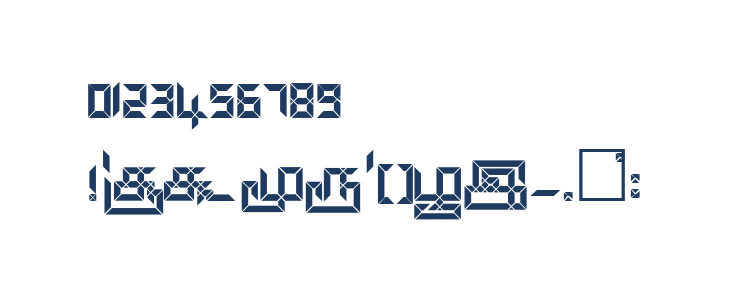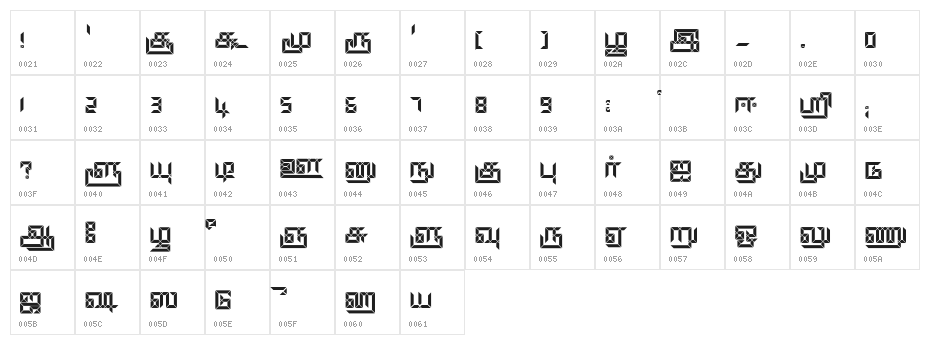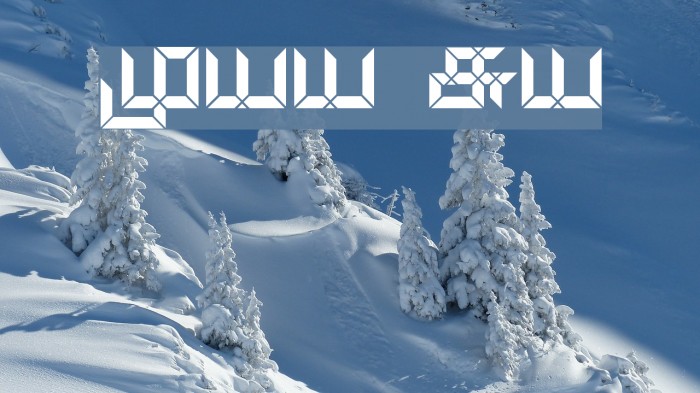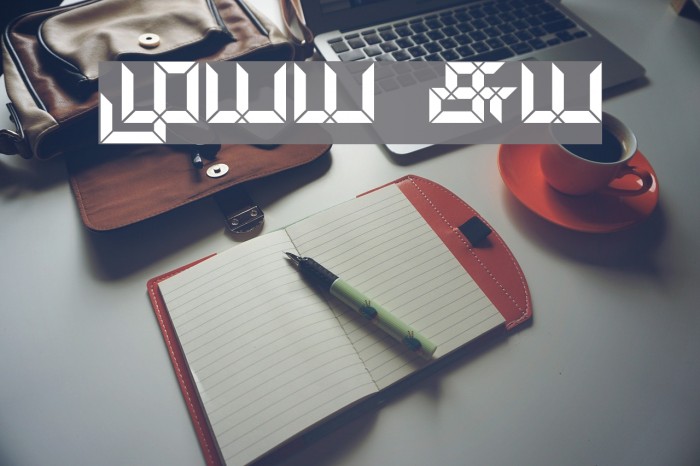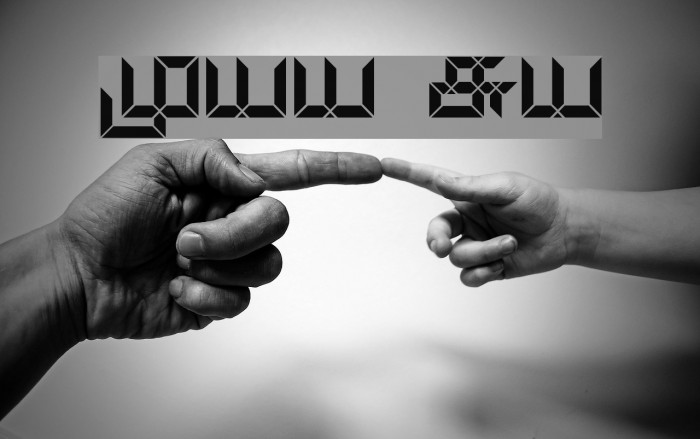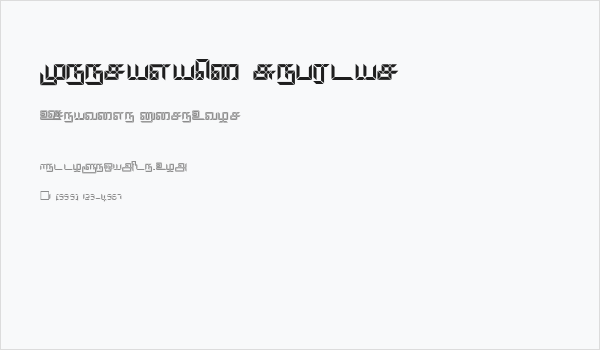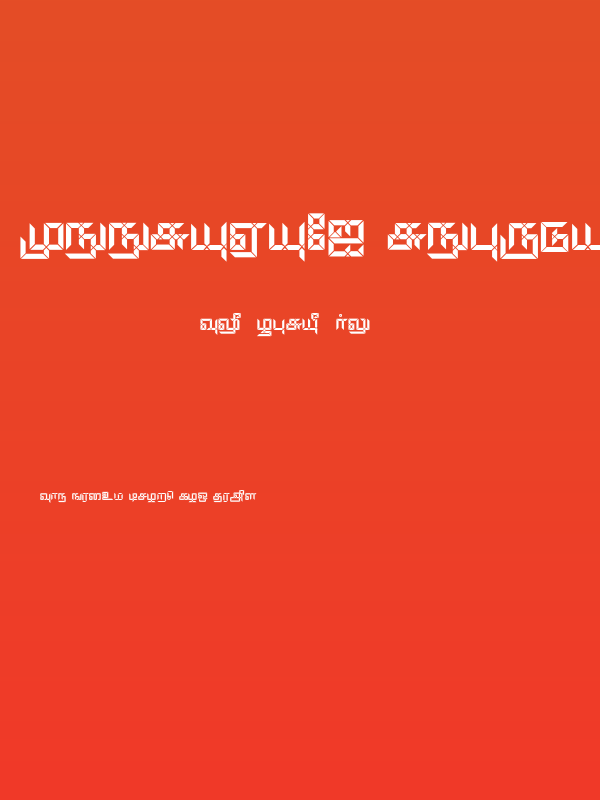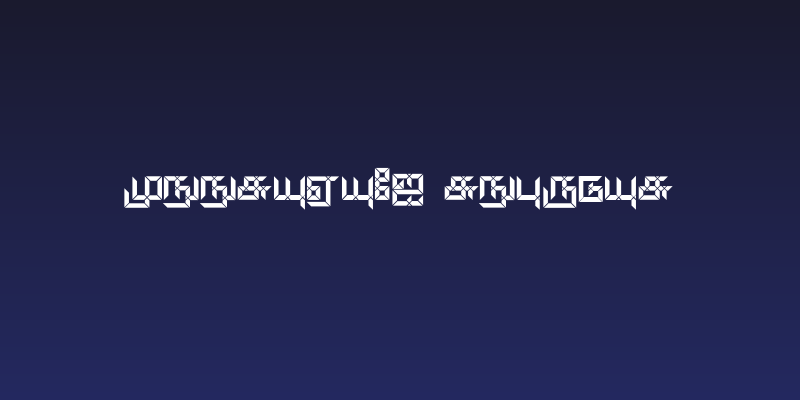
Keeravani Regular Font
Keeravani Regular Description
This font features a highly decorative and geometric style, characterized by intricate patterns within each character. The design incorporates a series of angular lines and shapes, creating a mosaic-like appearance. Each letter and number is crafted with a unique combination of solid and hollow sections, giving the font a distinct, artistic flair. The overall aesthetic is bold and eye-catching, making it suitable for projects that require a strong visual impact. The font's complexity and detail suggest a modern take on traditional geometric patterns, offering a fresh and innovative look.